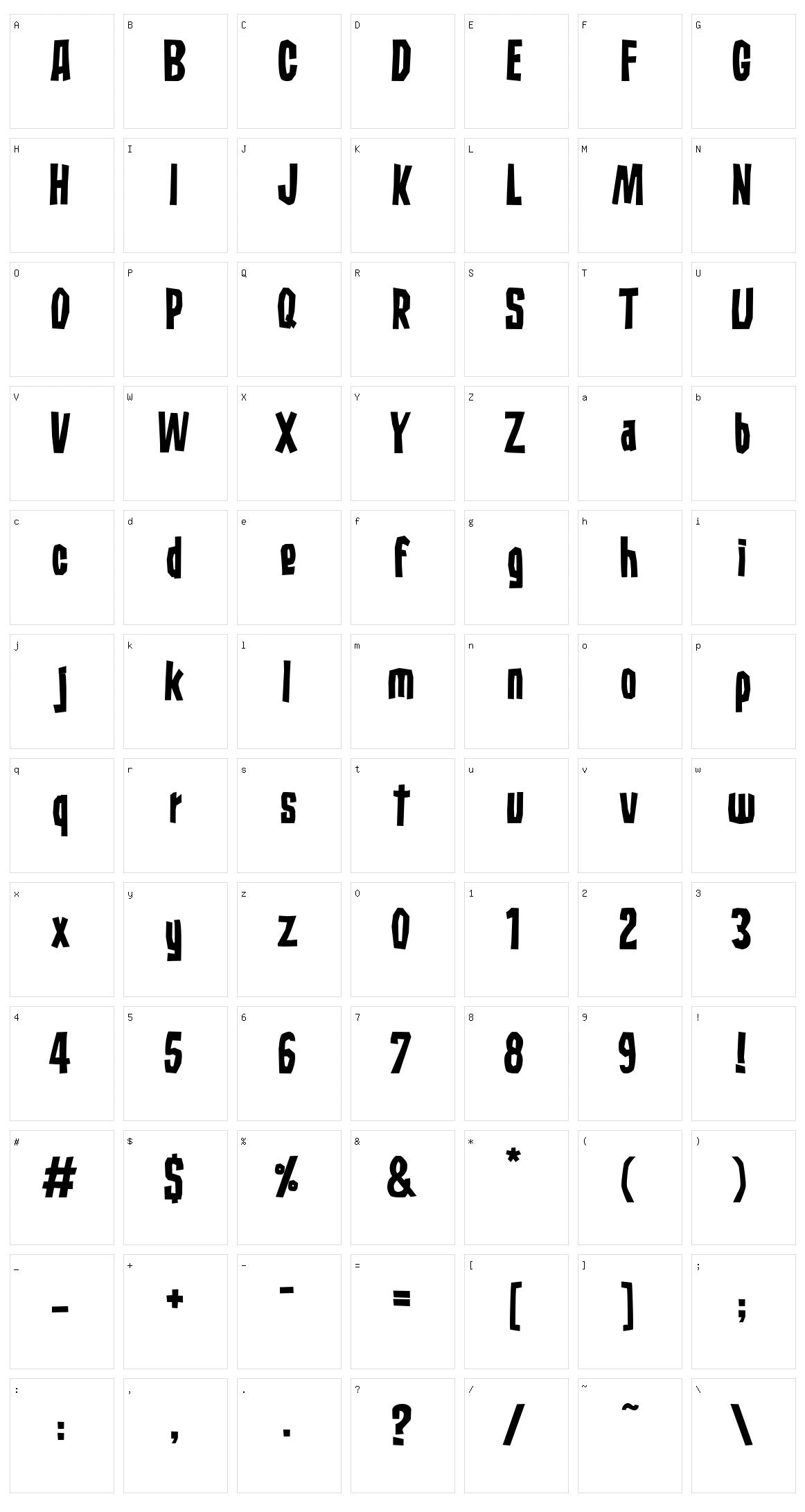
Subaccuz, created by Sub Communications in 2002-03
- Includes complete character set (lowercase and uppercase letters,
numbers, punctuation, and accented characters).
- Spacing and kerning.
- Subaccuz was first made for a "pilot" of a Tv show that may be produce in 2003.
The show was a blend between a suspense cop movie and a tv quizz. We based our research on old tv series with a psycho look and we ended discovering a movie produced in 1962 called "What ever happened to baby jane ?". We crated the font on the letters used in that title.